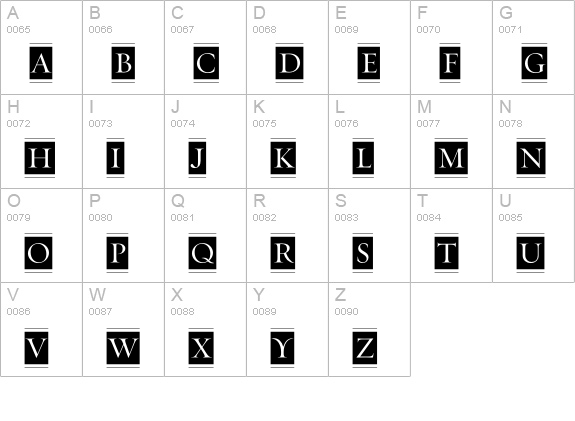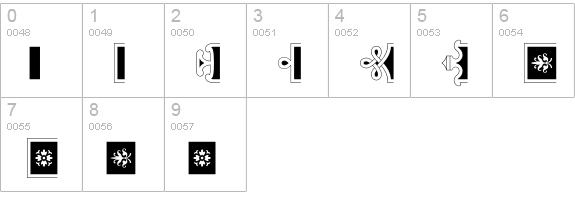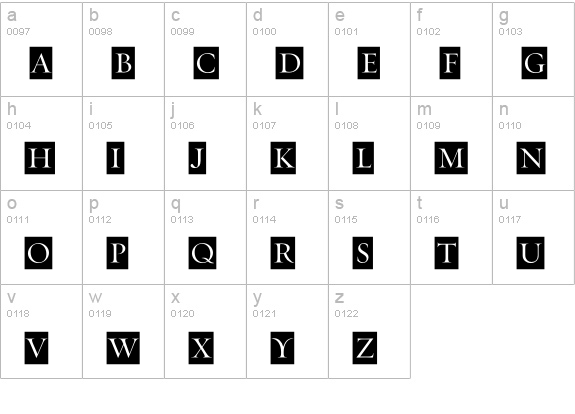
RequiemOrnaments-HTF-Display Font Details
RequiemOrnaments-HTF-Display font is a stunning typeface that effortlessly blends elegance and sophistication. With its intricate details and ornate design, this font is perfect for adding a touch of luxury to any project. Featuring a wide range of decorative ornaments, RequiemOrnaments-HTF-Display font is an ideal choice for creating eye-catching headlines, invitations, logos, and more. Each glyph is meticulously crafted, showcasing the meticulous attention to detail that went into creating this magnificent typeface. What sets RequiemOrnaments-HTF-Display font apart is that it is not only visually captivating, but it is also freely available to download at FontsMarket.com. This means that you can effortlessly enhance your designs without any additional cost. Whether you are a professional designer or a DIY enthusiast, RequiemOrnaments-HTF-Display font offers endless creative possibilities. Its versatility allows it to be used across various projects, from wedding invitations to branding materials. Embrace the beauty of RequiemOrnaments-HTF-Display font and elevate your designs to new heights. With its timeless charm and a touch of sophistication, this font is guaranteed to make a lasting impression. Download it for free today at FontsMarket.com and unlock the potential of this extraordinary typeface.